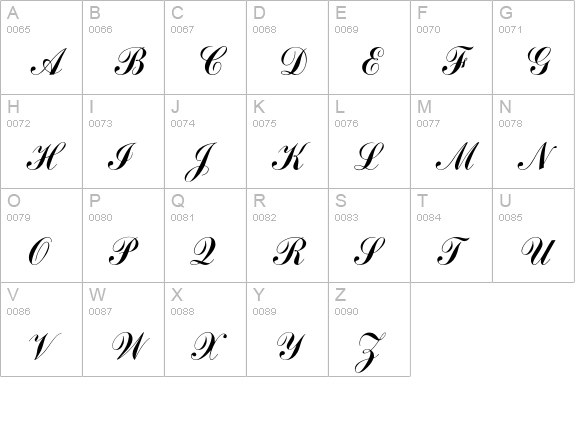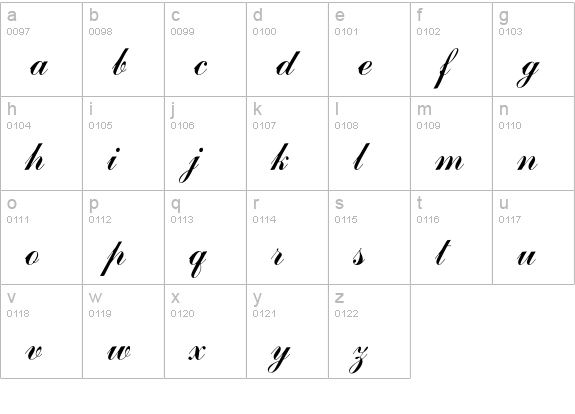
CommercialScript Font Details
CommercialScript is a stylish and elegant font that exudes sophistication and professionalism. With its clean lines and graceful curves, this font is perfect for a wide range of design projects, from branding and advertising to invitations and packaging. The versatility of CommercialScript makes it a valuable addition to any designer's toolkit. The best part? CommercialScript is available for free download at FontsMarket.com, allowing you to easily access this beautiful font for all your creative endeavors. Whether you're working on a corporate presentation or designing a wedding invitation, CommercialScript is sure to add a touch of class to your project. Download it today and elevate your designs with the timeless beauty of CommercialScript font.